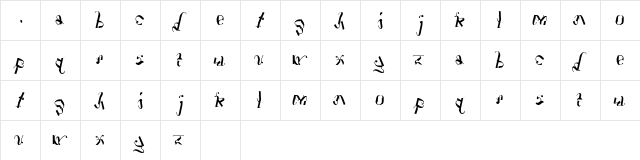
Tshtars Regular
Design Context for Tshtars Typeface
Tshtars is a composed and adaptable typeface that performs quietly and consistently across a wide range of design contexts.